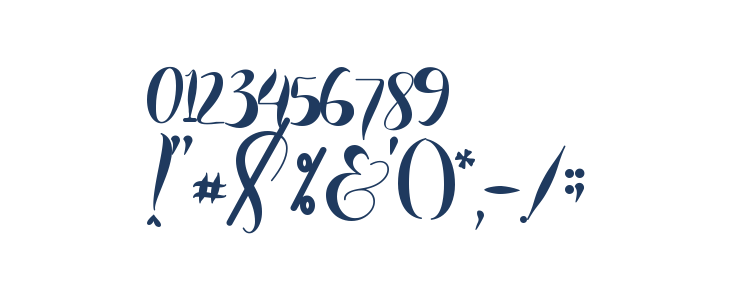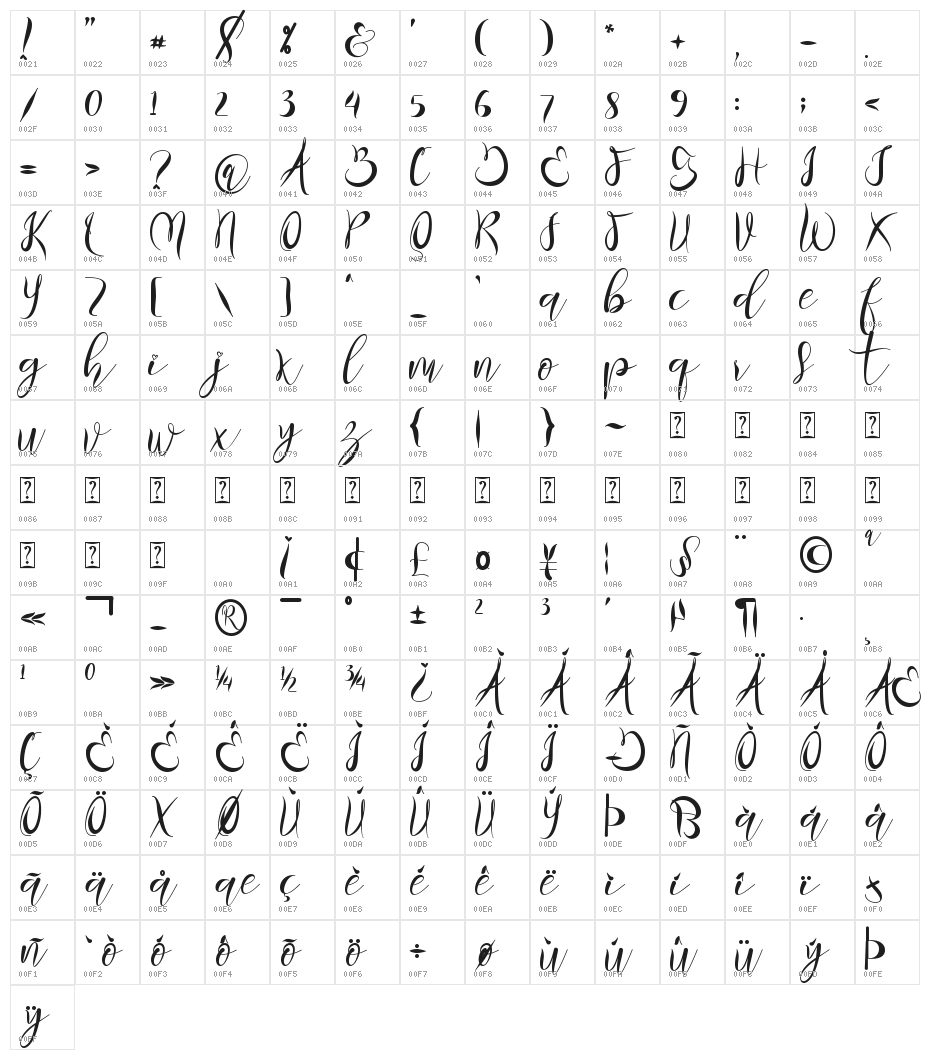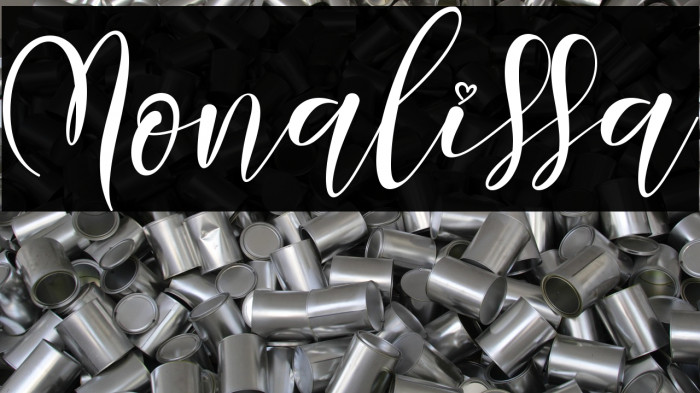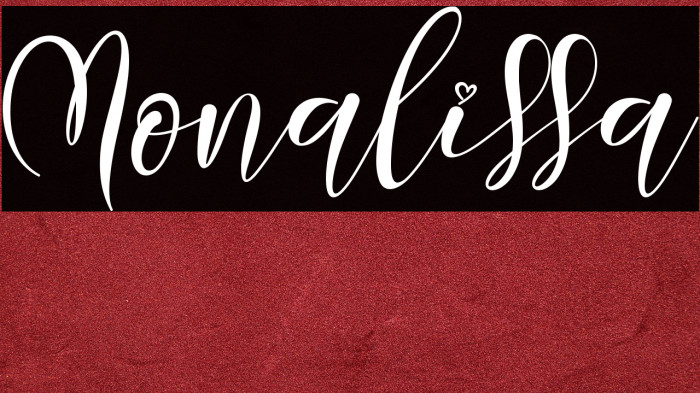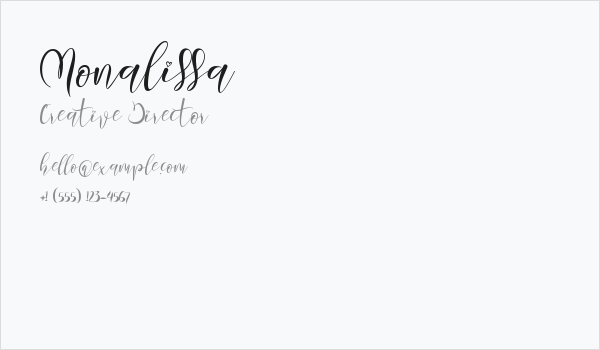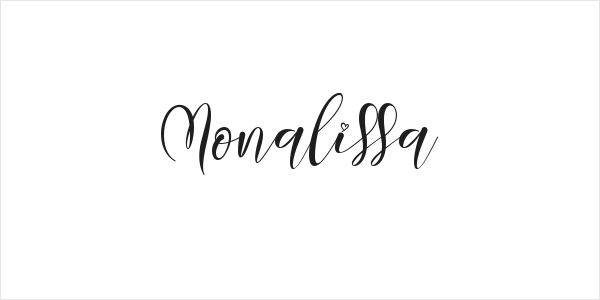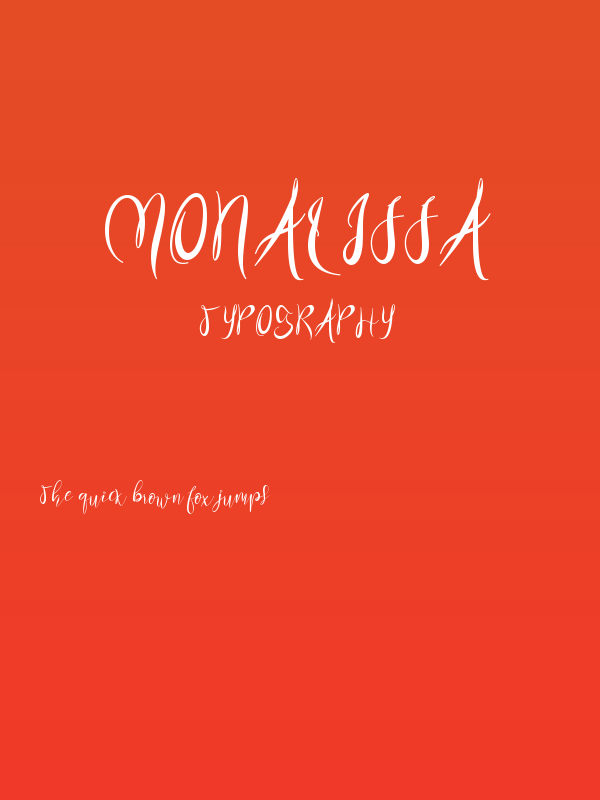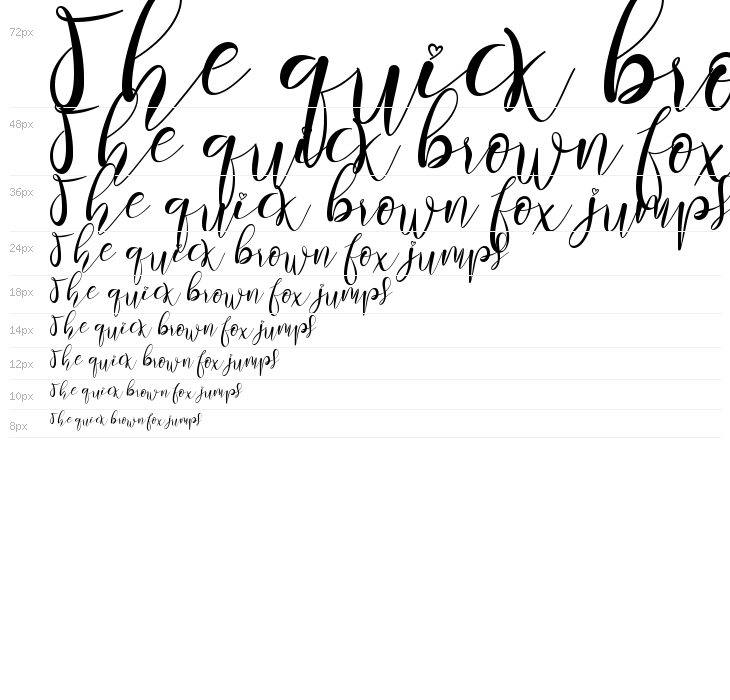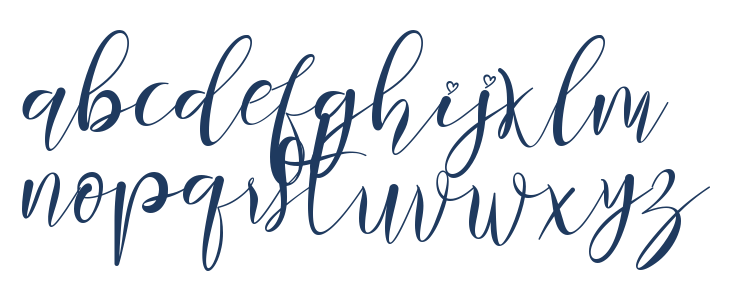
Monalissa Font
Monalissa Description
This font features an elegant and flowing script style, characterized by its smooth, cursive strokes and artistic flair. The uppercase letters exhibit a graceful, sweeping motion, while the lowercase letters maintain a consistent fluidity, often connecting seamlessly. The numerals are bold and dynamic, complementing the overall aesthetic. Special characters are creatively designed, adding a whimsical touch to the font. The heart accents on certain letters enhance its romantic and decorative appeal, making it ideal for projects that require a personal and artistic touch.
| Use Case | Logos, Invitations, Decorative text |
| Proposed Projects | Ideal for wedding invitations, greeting cards, branding, and logo design. |